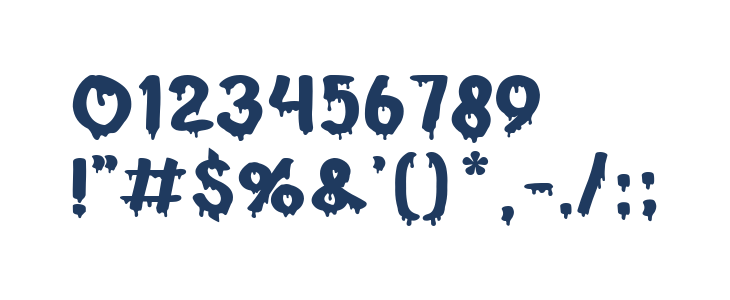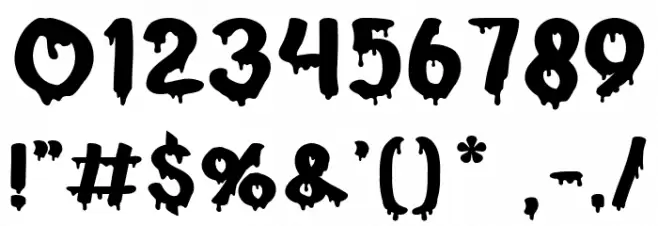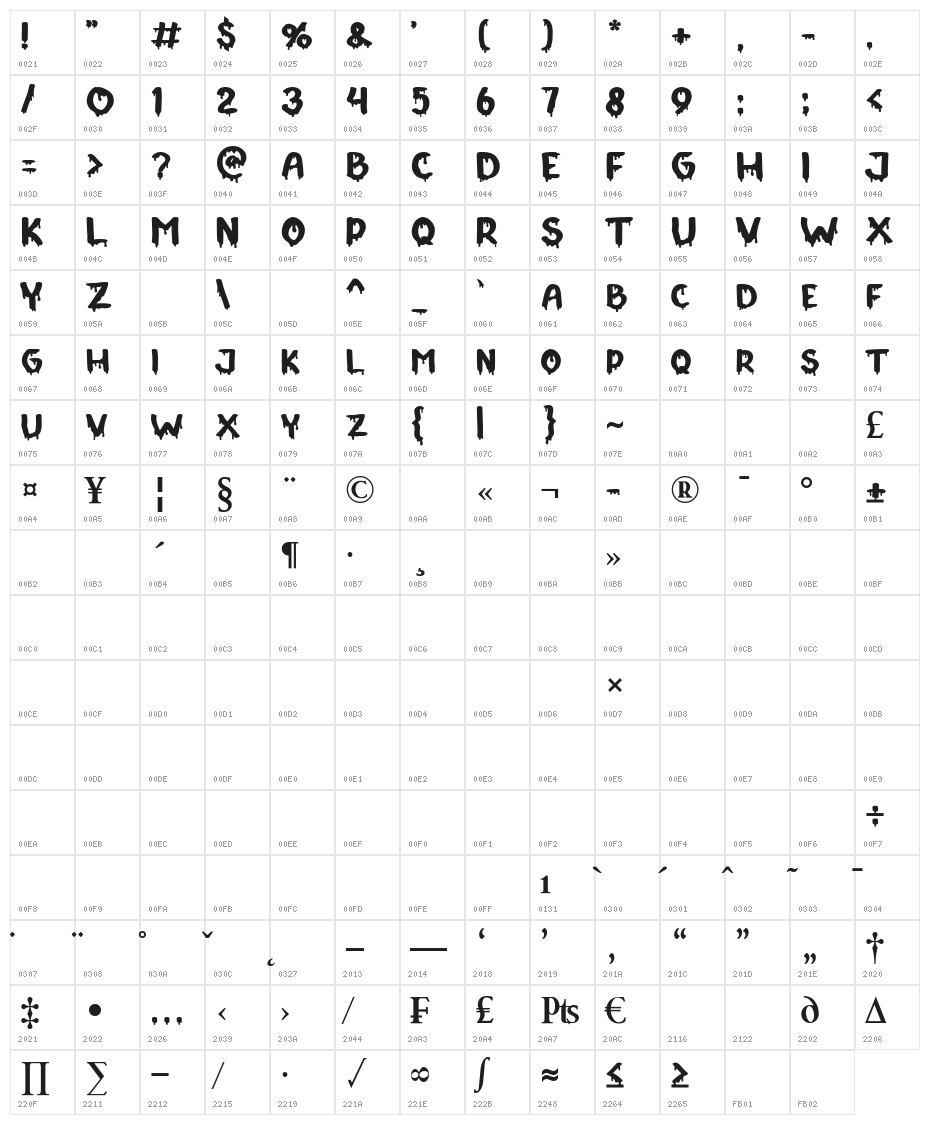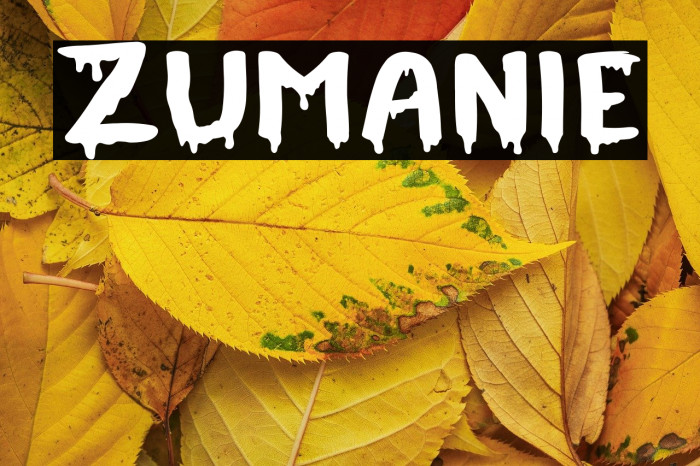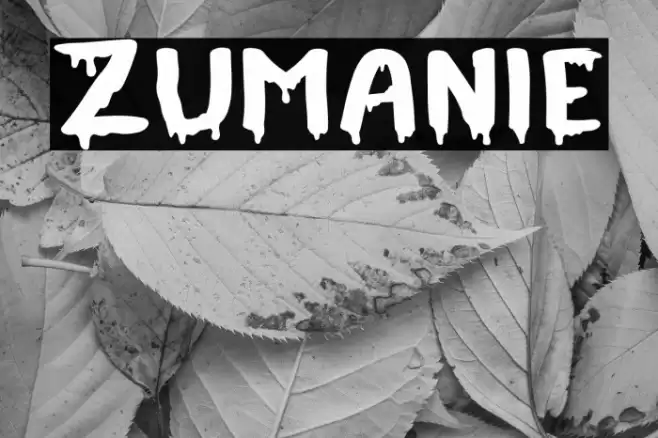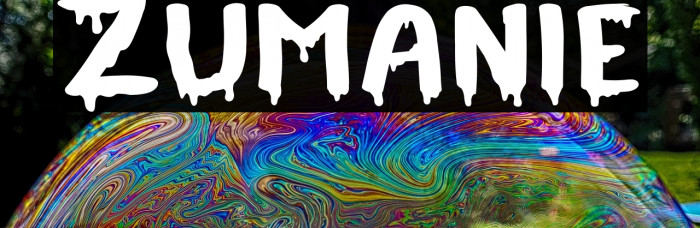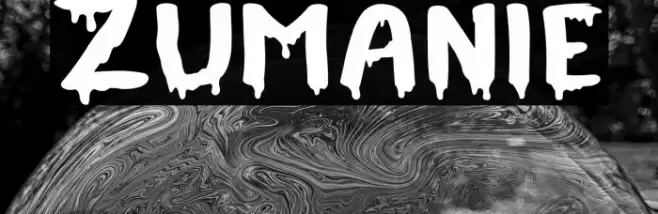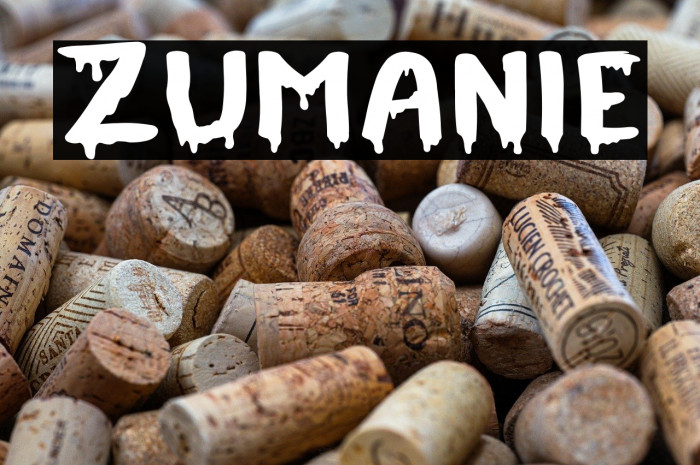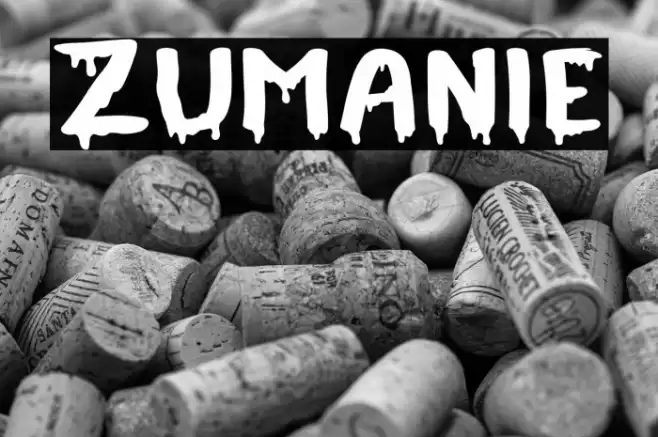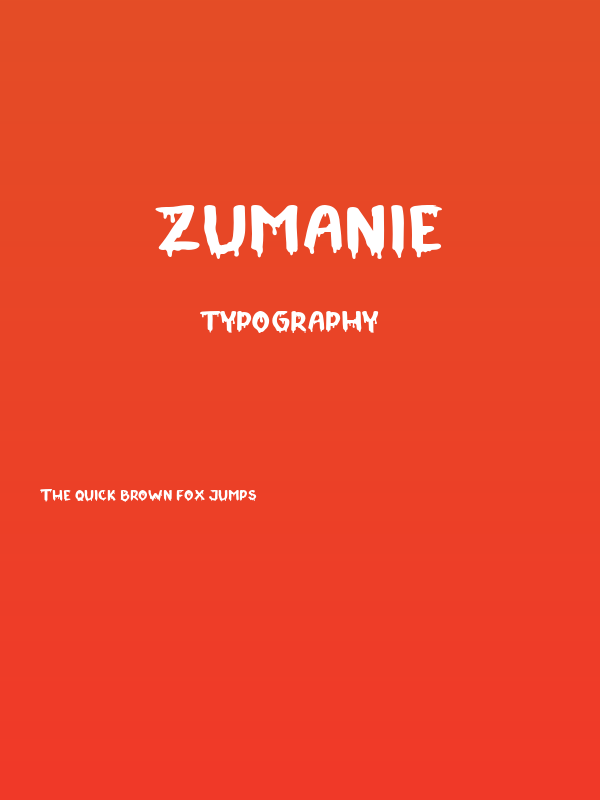
Zumanie Font
Zumanie Description
This font features a bold and playful design with a dripping effect that gives it a unique, slightly eerie appearance. The characters are thick and rounded, with irregular edges that mimic the look of melting or dripping liquid. This style is consistent across both uppercase and lowercase letters, as well as numbers and special characters. The font's distinctiveness makes it suitable for creative and unconventional projects, particularly those that aim to capture attention with a quirky or spooky theme.
| Proposed Projects | Ideal for Halloween-themed designs, horror movie posters, children's spooky storybooks, and creative event invitations. |